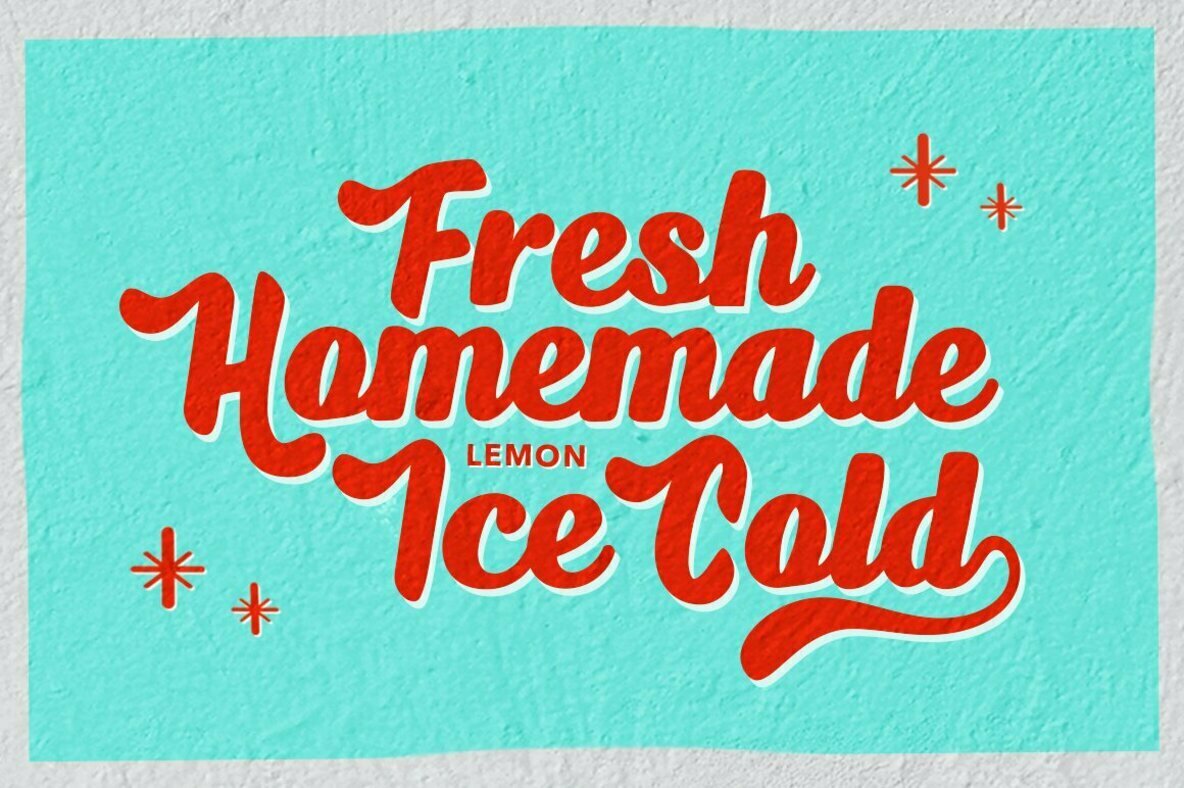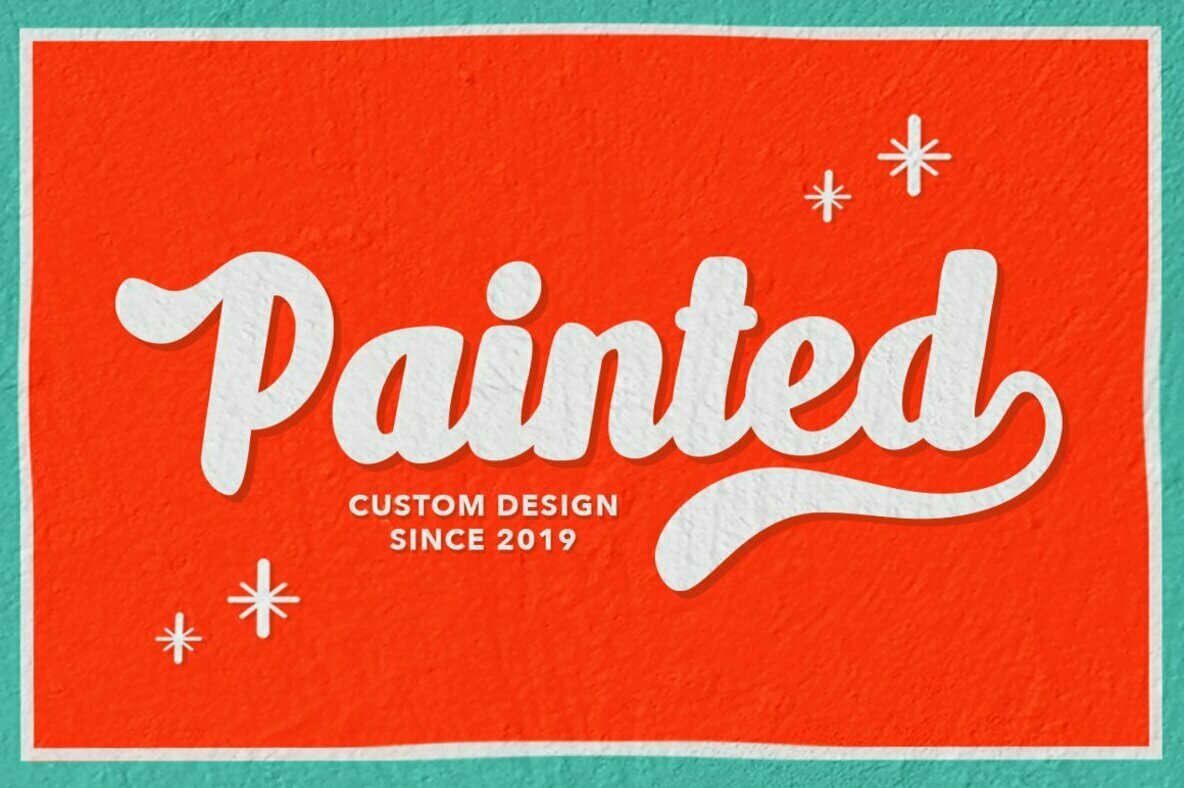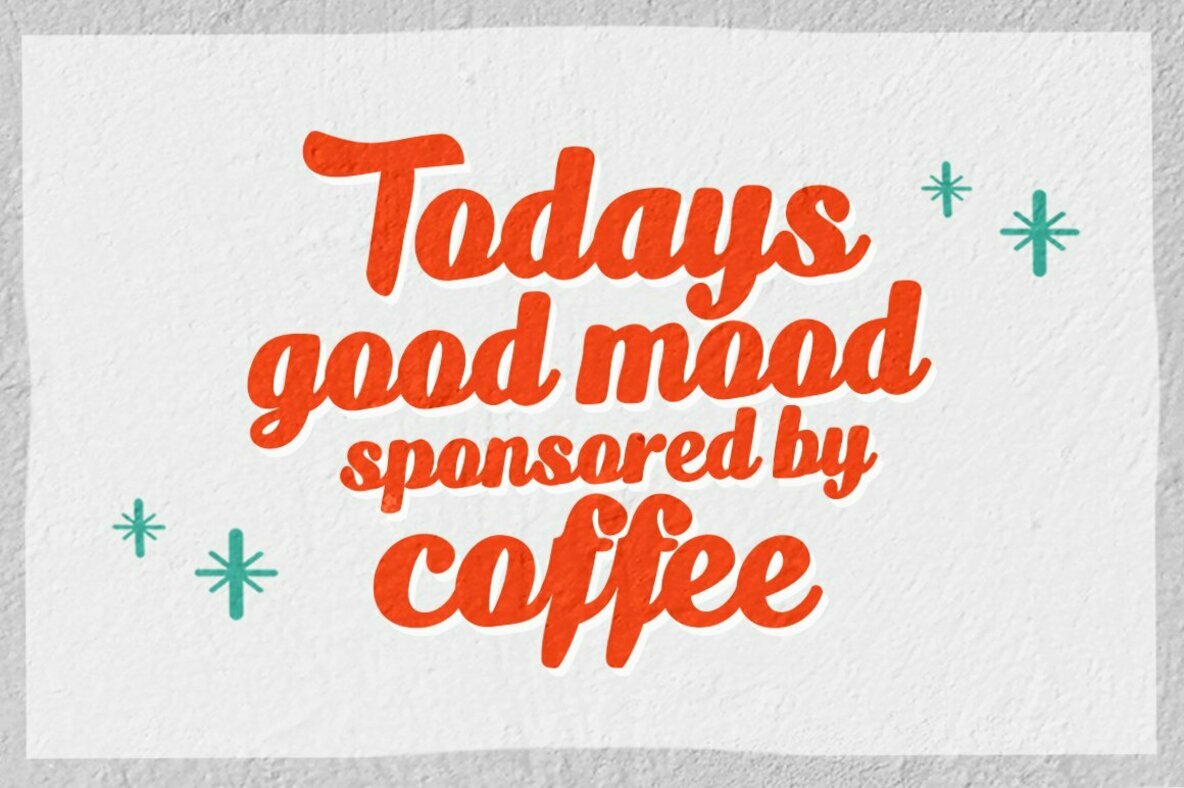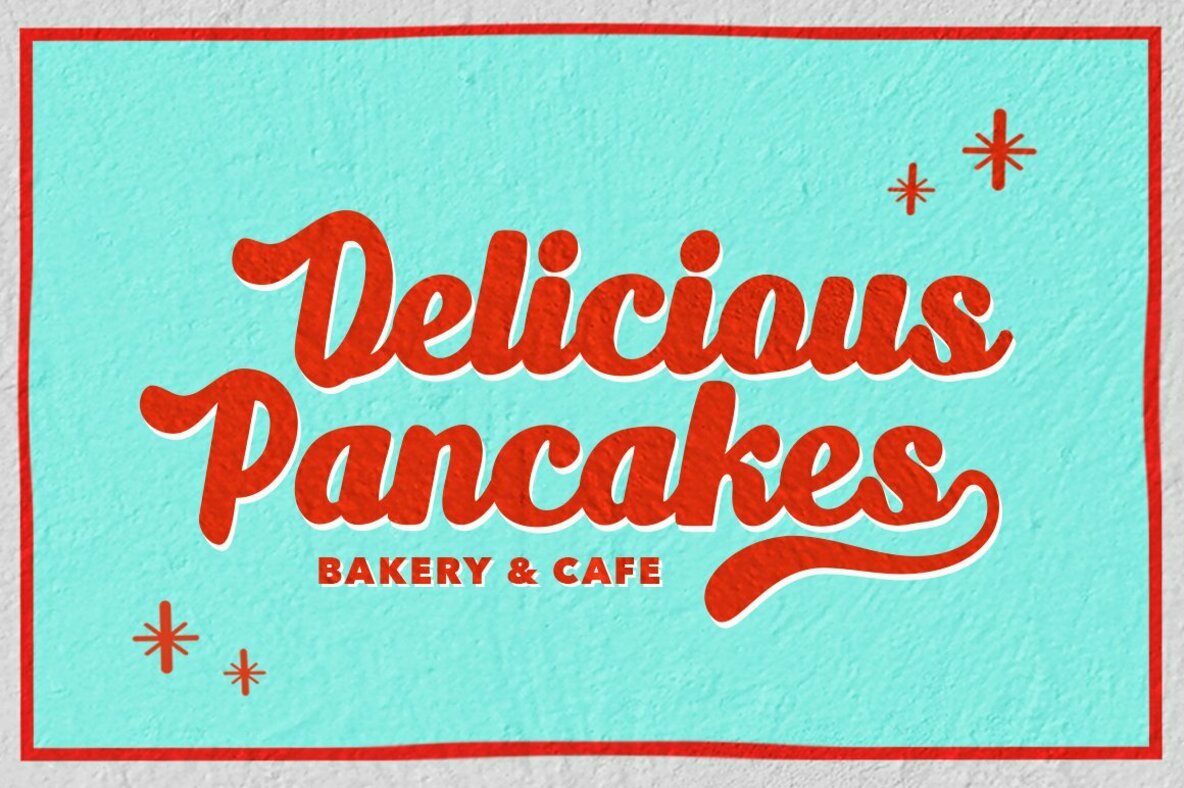
Boldka Script: A Vibrant Connected Script
Boldka Script offers a dynamic blend of boldness and connectivity, embodying a fresh, casual, and fun aesthetic. Ideal for crafting striking headlines, eye-catching logos, and lively posters, this font brings an expressive flair to any design project.
• OpenType Features – Includes stylistic alternates and ligatures for creative flexibility.
• International Support – Supports most Western languages, broadening its applicability.